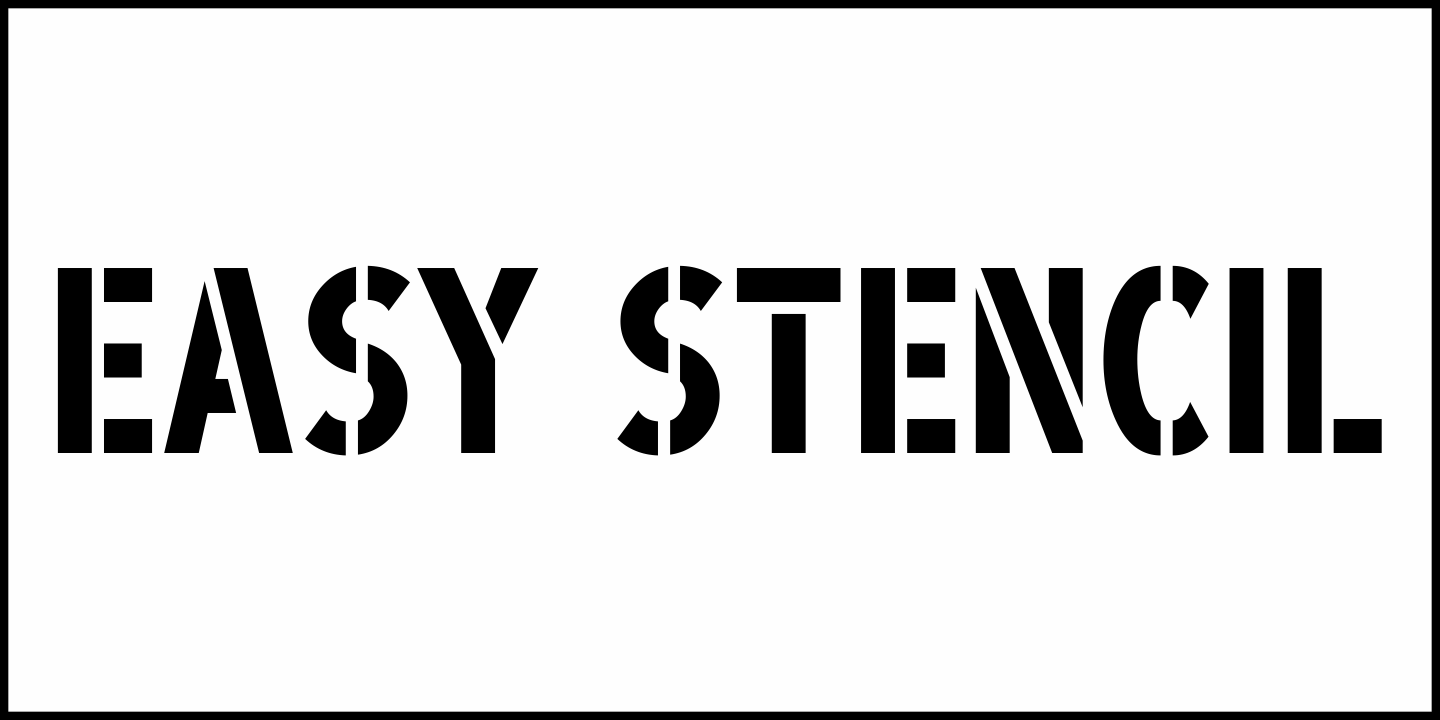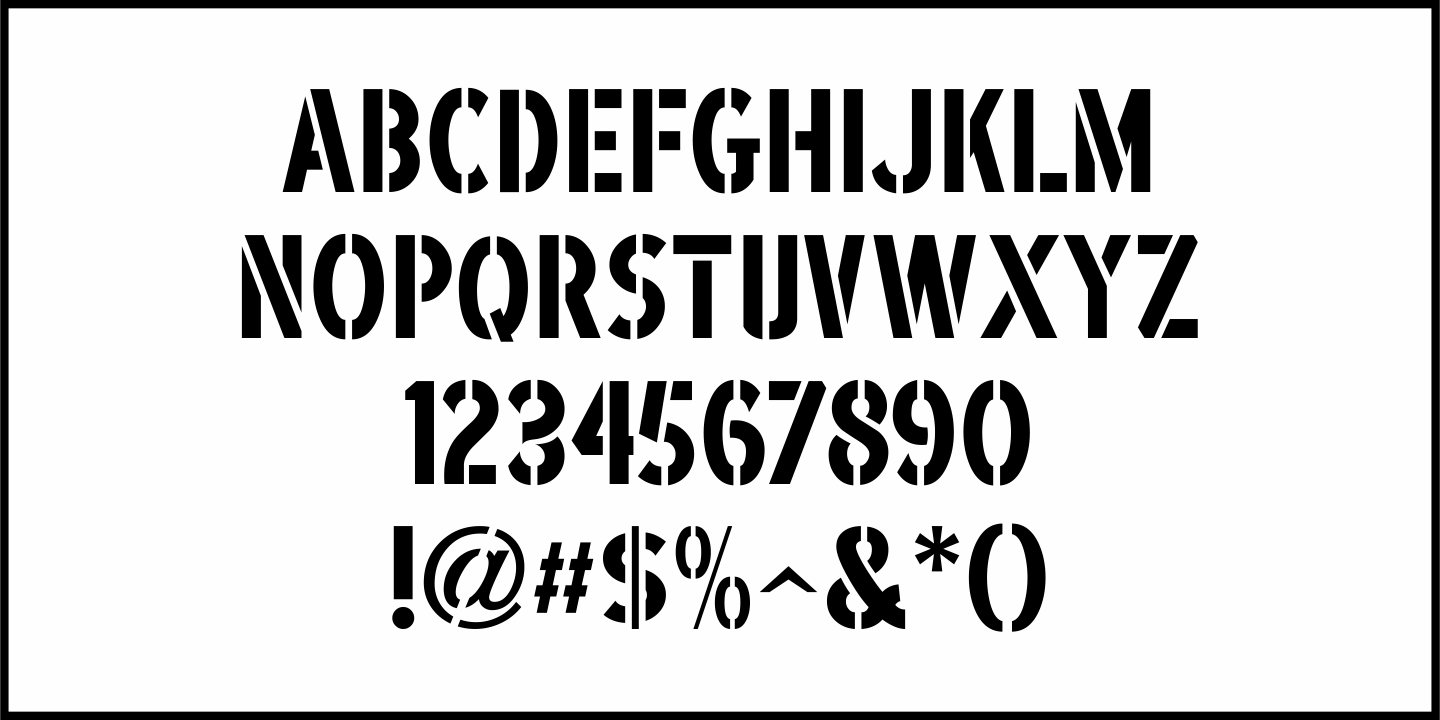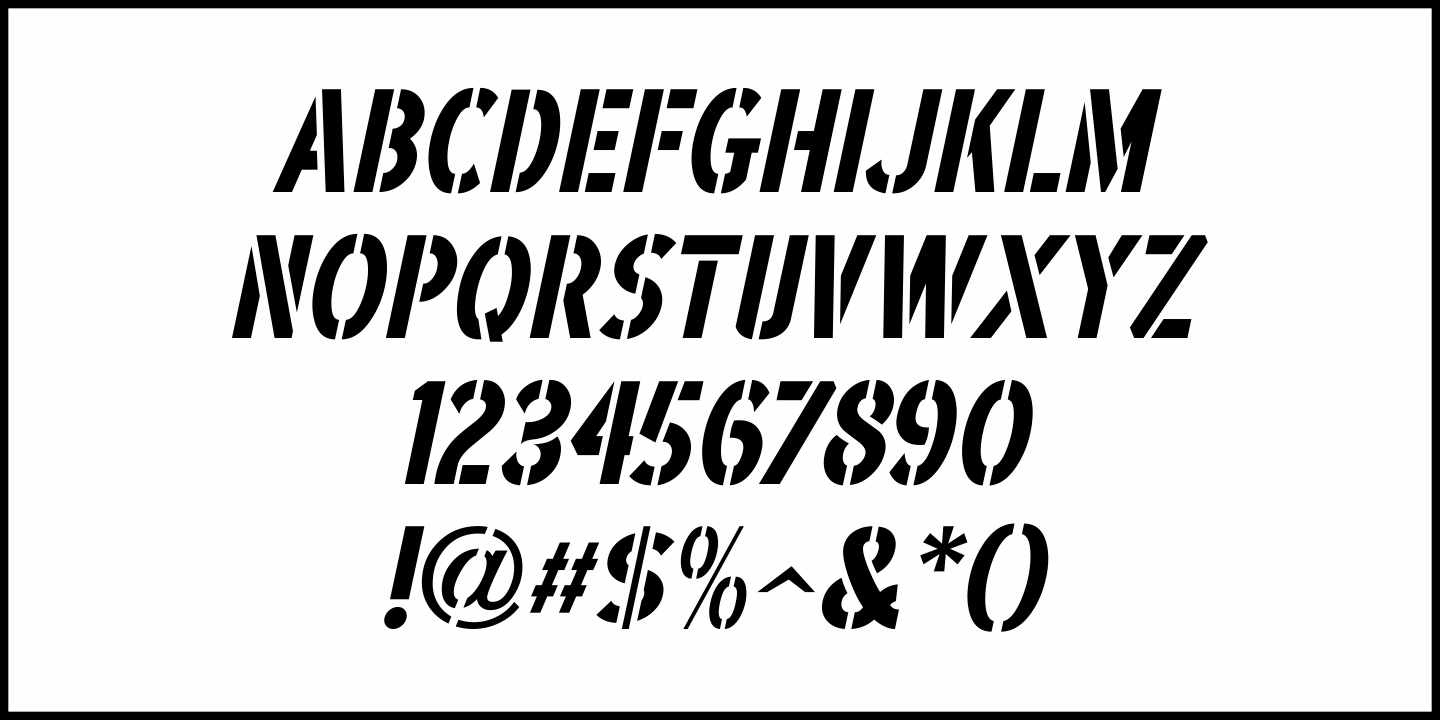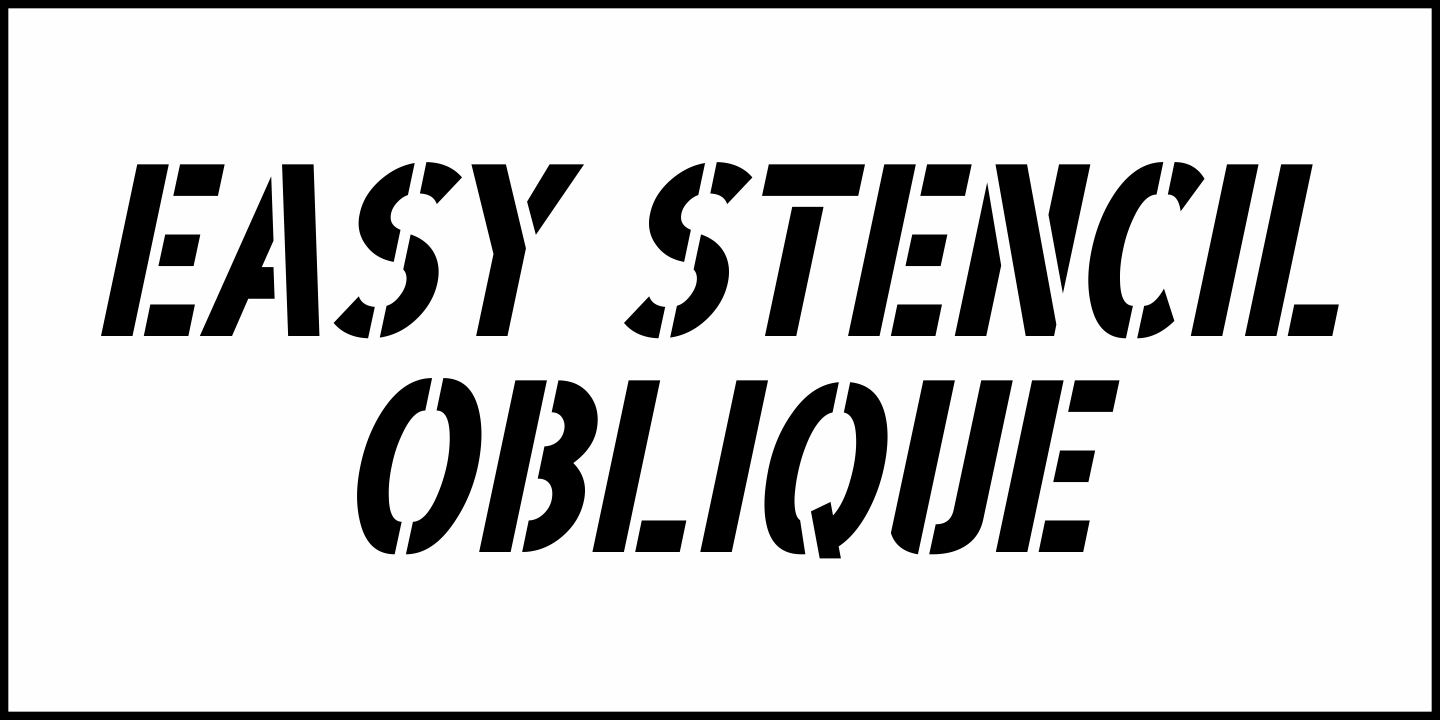
Easy Stencil
Easy Stencil JNL is a simple sans serif stencil design [based on a hand lettered example] from the 1922 publication “Modern Show Card Writing” and is available in both regular and oblique versions.